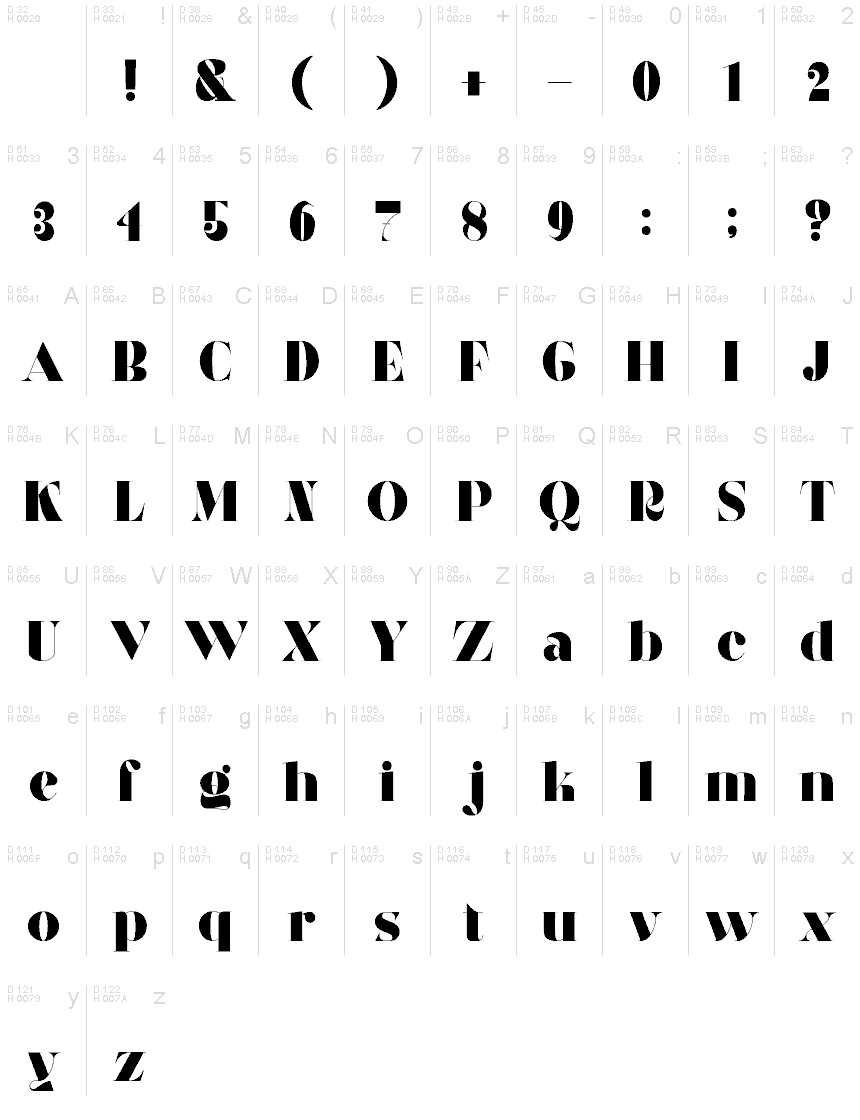
Eloora
Eloora font by Creatype Studio is a modern display free font that showcases elegance and sophistication. Along with geometric influences, the style has bold serifs and high contrast strokes creating an interesting appearance in which traditional style meet modern influences. Eloora showcases an unusually large x height which won’t be so visible on small sizes but will make this title font stand out when used on large applications.
The optimal use cases include logos, stationary, invitations, advertising formats like posters and billboards, social media posts & stories etc. Fashion or beauty oriented brands are the ones which can mostly realize the full potential of Eloora in their designs.